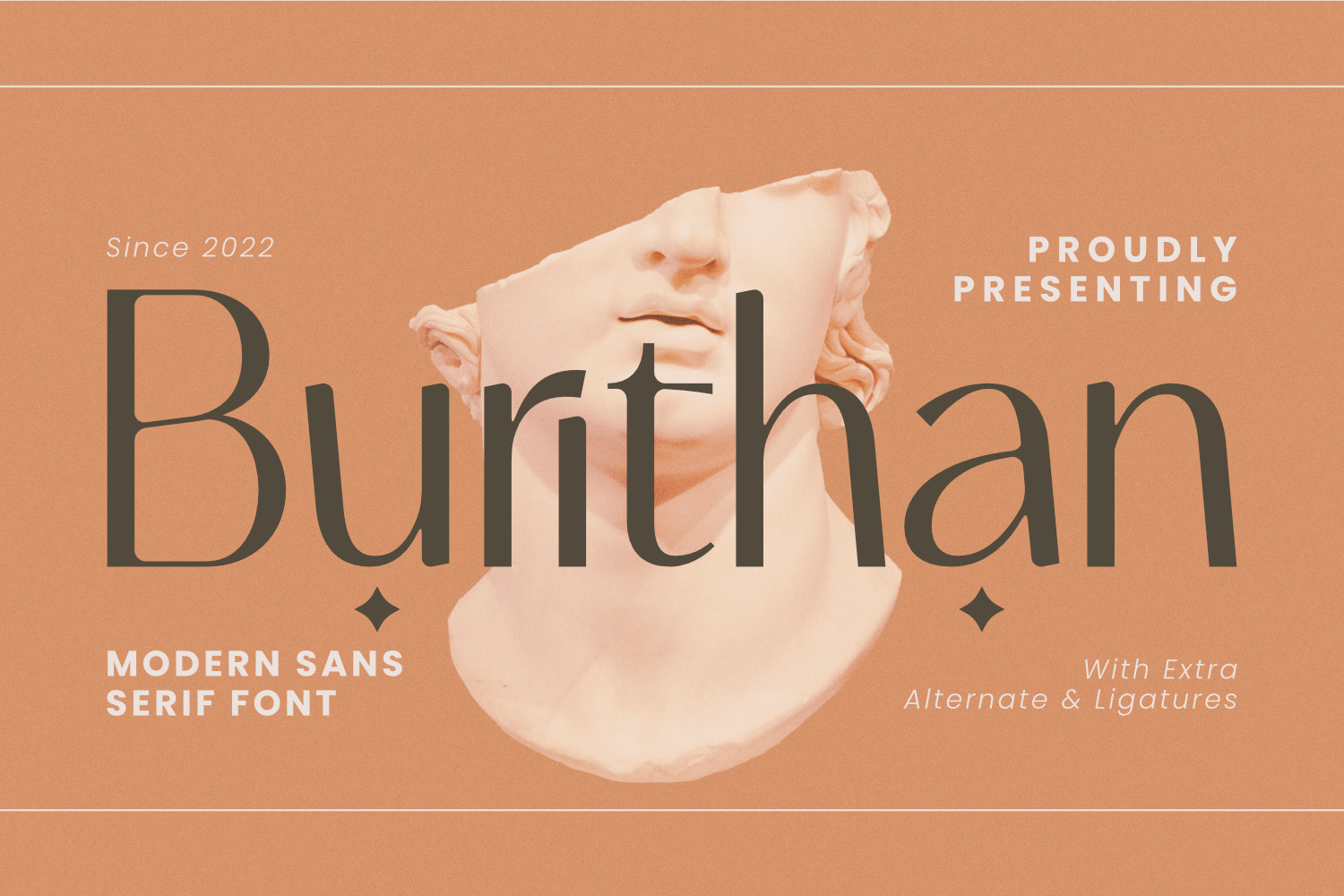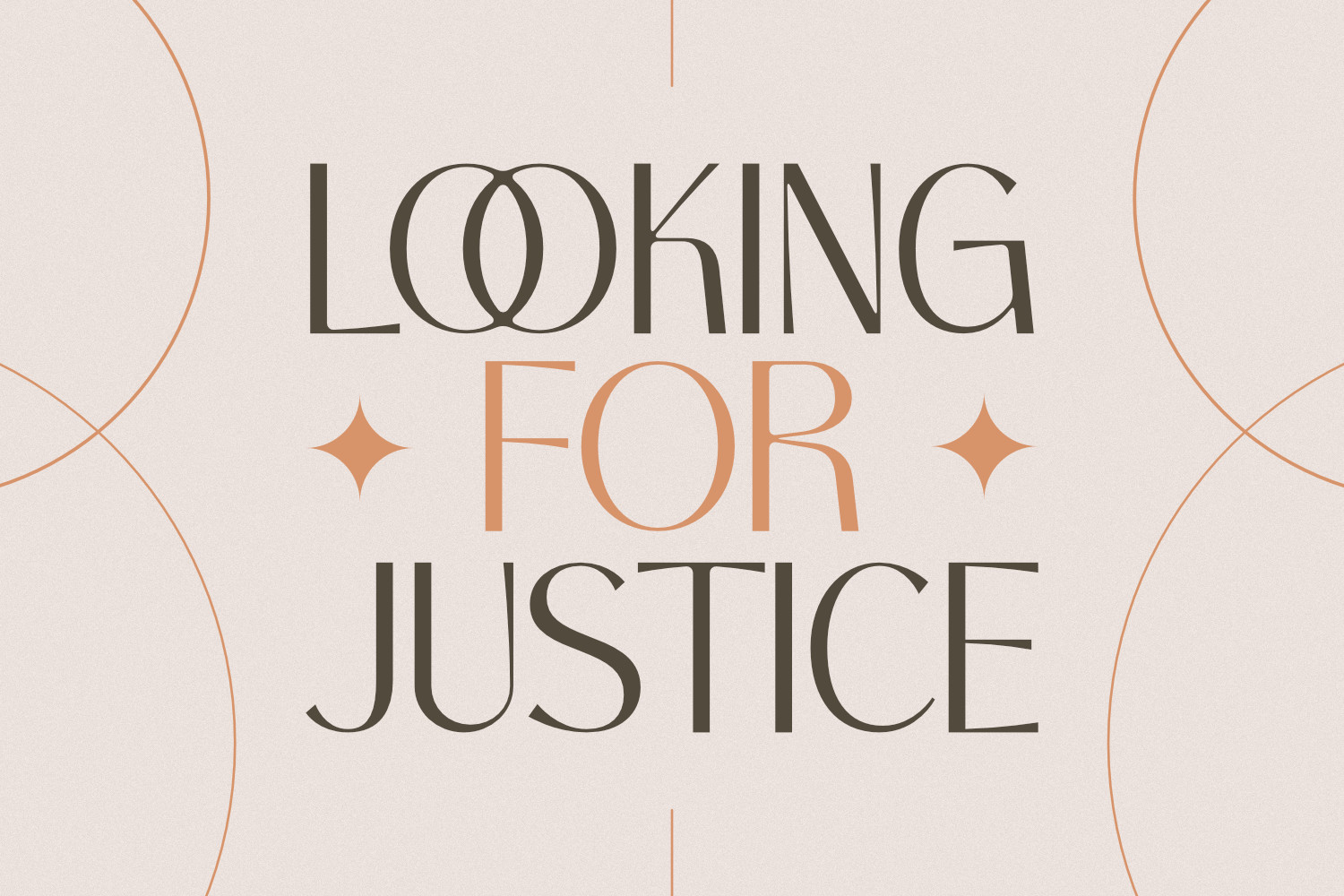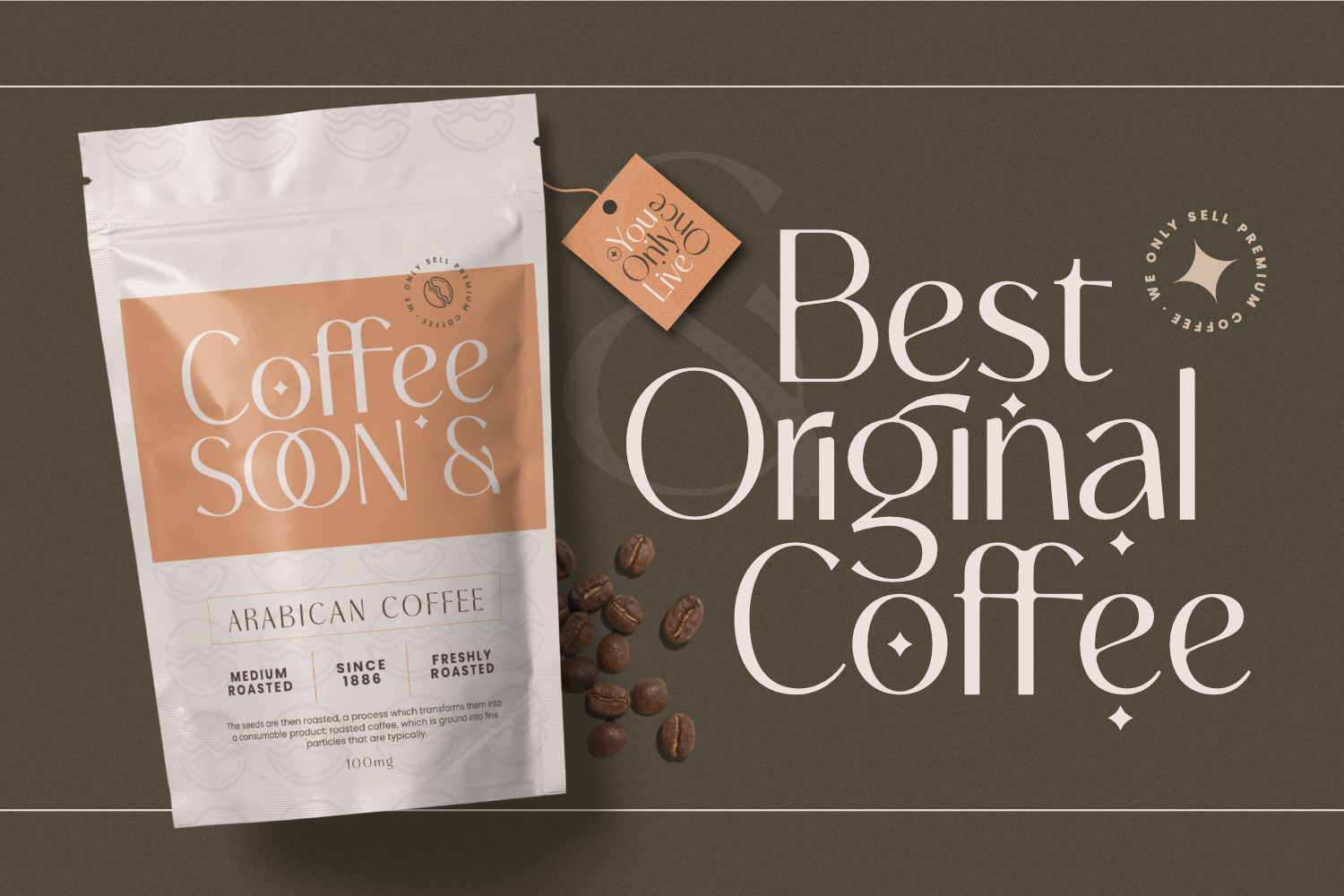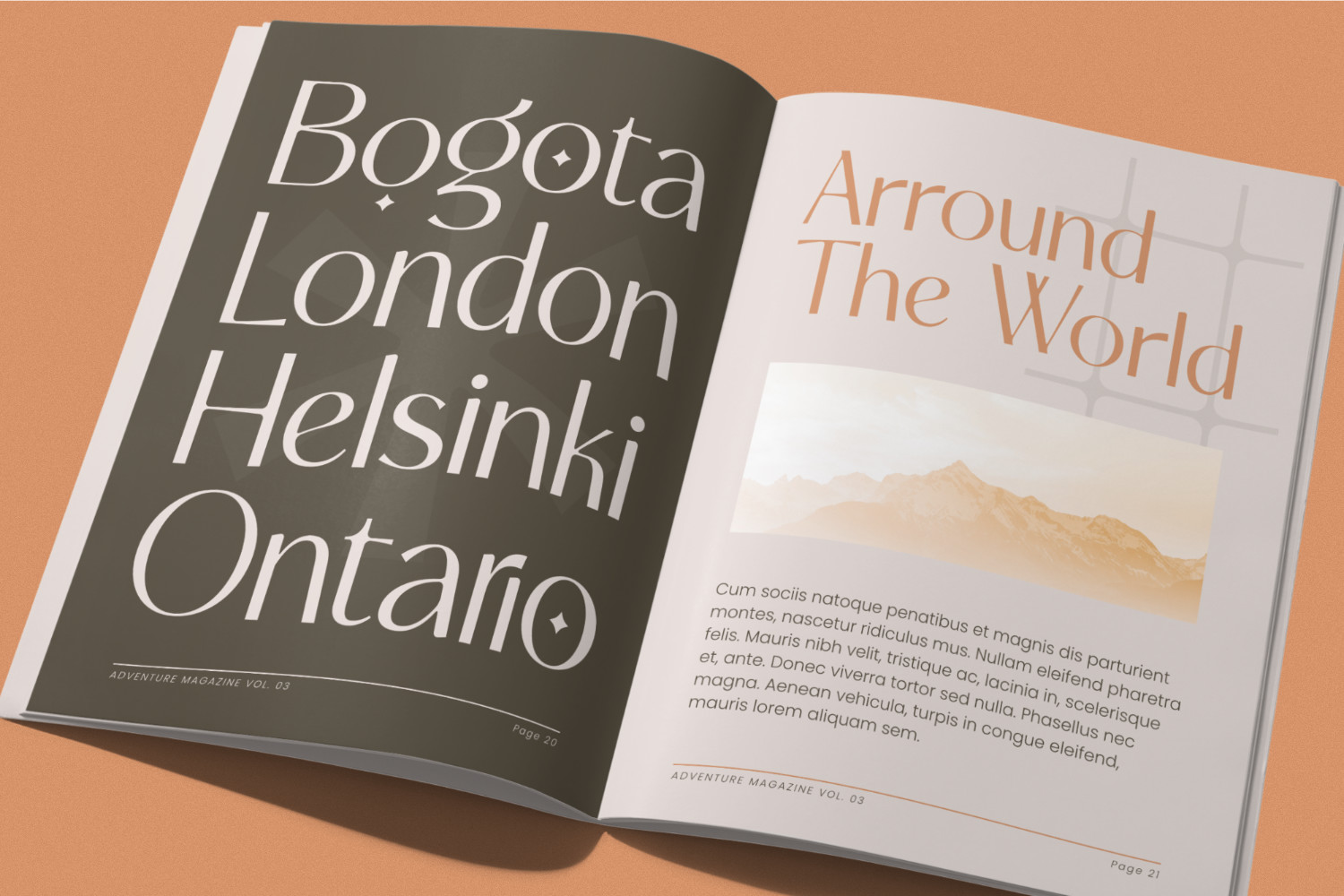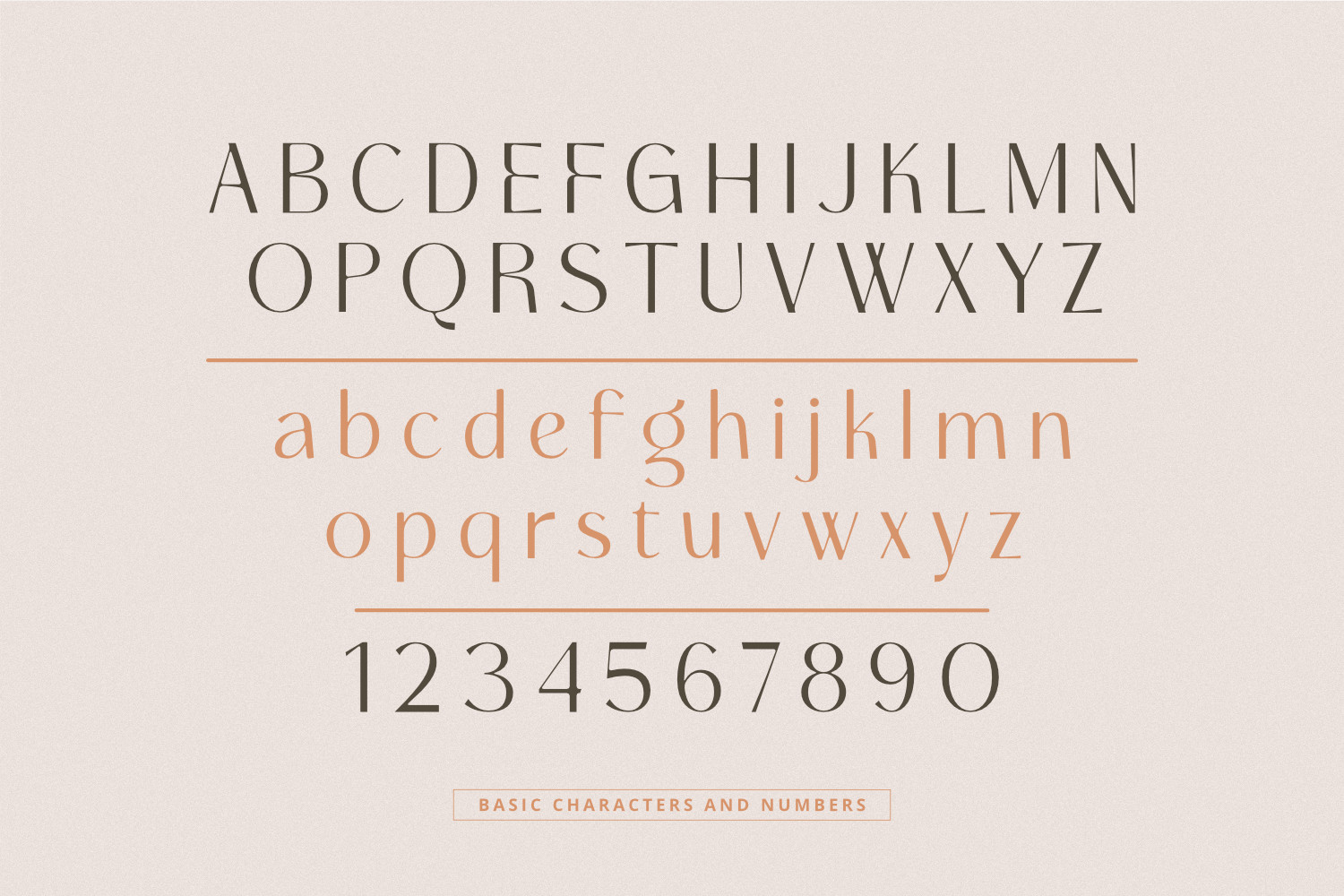
Burithan is a modern sans serif font with a distinctive twist, combining elegant curves with minimalist design. The font features subtle alternate characters and refined ligatures that add a sophisticated charm to any visual project. With its clean lines and elegant proportions, Burithan brings a graceful yet contemporary feel, perfect for branding, magazine layouts, packaging, and editorial headlines.
This typeface is designed to balance readability and character, making it ideal for both print and digital formats. The versatility of Burithan lies in its ability to adapt between professional and expressive use cases, providing a unique aesthetic that stands out while maintaining clarity. The multilingual support further enhances its global usability.